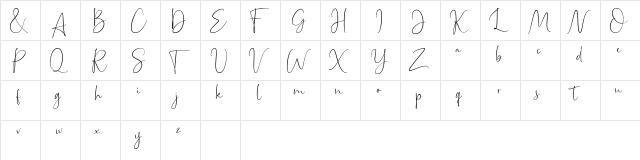
Bettrish Regular
Design Context for Bettrish Typeface
Bettrish is a composed and adaptable typeface that performs quietly and consistently across a wide range of design contexts.